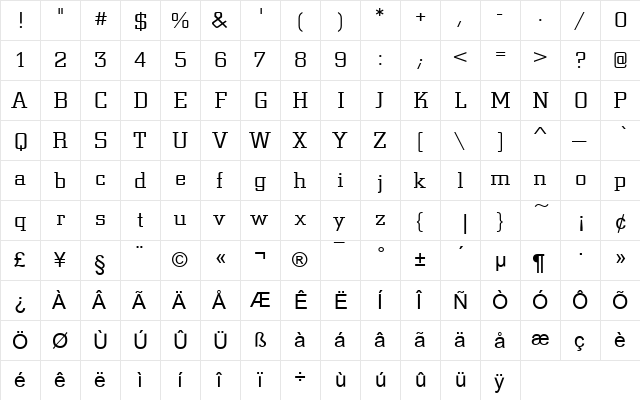
Ayar_Thawka_pub Regular
| Foundry | Ayar Unicode Group |
| Designer | Ayar Unicode Group |
Design Context for Ayar_Thawka_pub Typeface
Ayar_Thawka_pub offers clean, dependable letterforms without strong stylistic allegiance, making it a practical choice for designers who need flexibility.